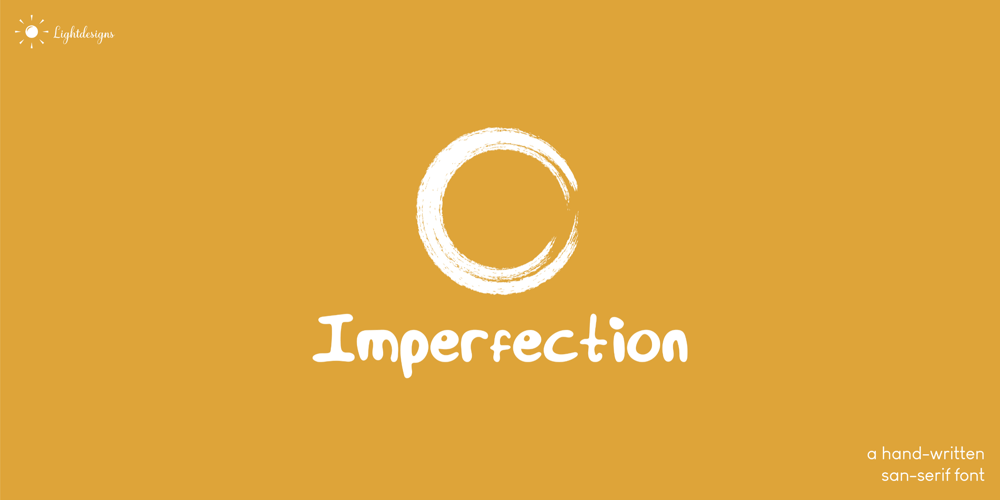
Imperfection Font Family was designed by Enoch Olaleye, Enoch Light and published by LIGHTDESIGNS. Imperfection contains 1 styles and family package options. IMPERFECTION Is a hand-written san-serif font inspired by human imperfections (mistakes). This is the first font created by LIGHTDESIGNS. It has no consistency in it’s design which made the font looks like a lot of mistakes has been made. But this is done with purpose. With these characteristics, the font is given the name “IMPERFECTION’, With surprising font and glyph designs, the intent of this font design is to pass a message that says, “SUCCESS IS NOT THE ACHIEVEMENT OF PERFECTION, BUT THE ACCOMMODATION OF IMPERFECTION™ This font design will be a fit in every design project it is utilised like logos, posters, flyers, magazine, card designs e.t.c. This font can be nicely pairs with script fonts & San serif font.